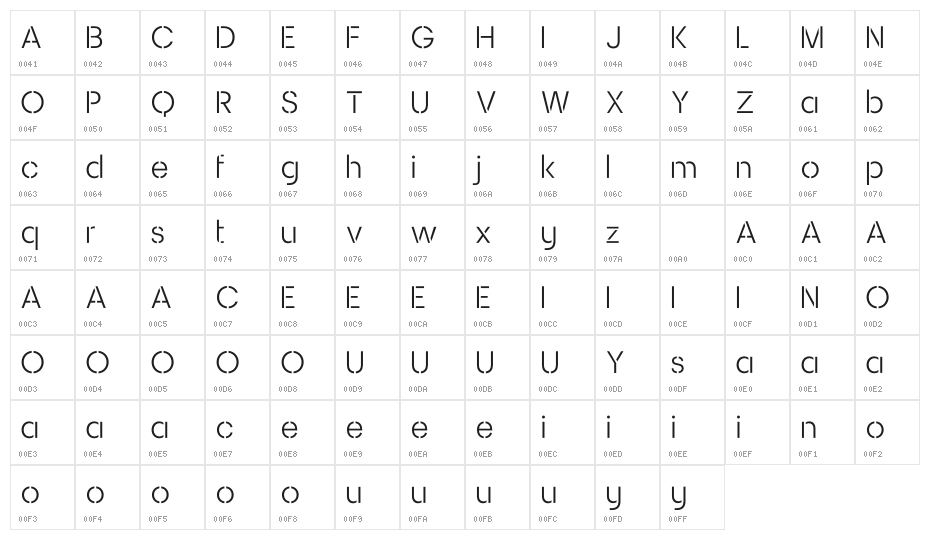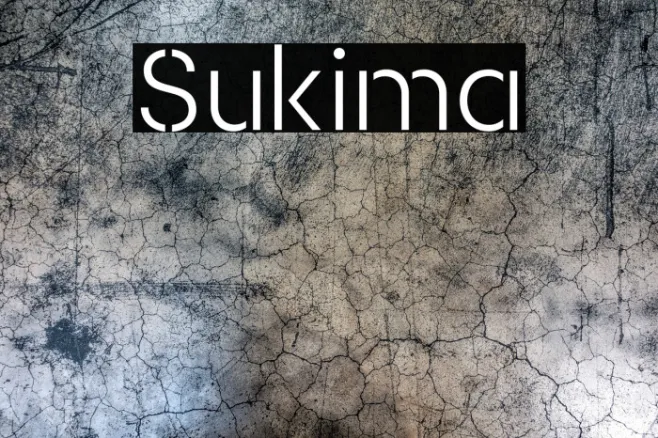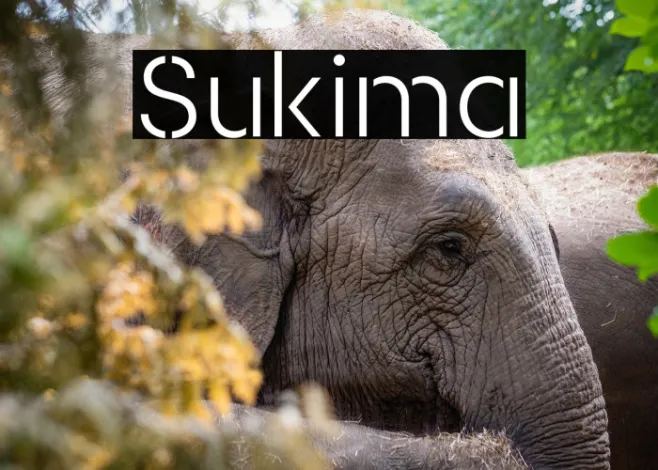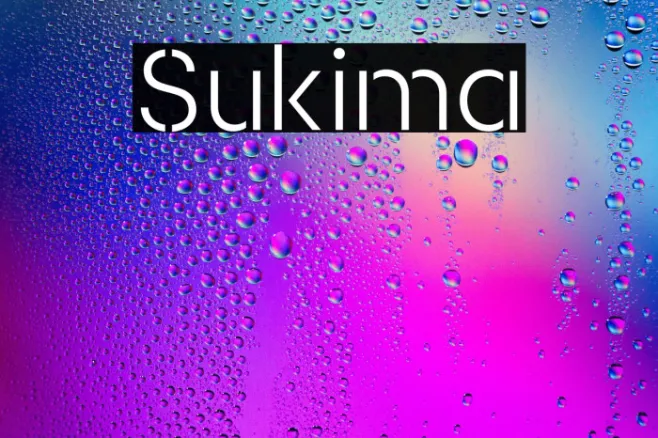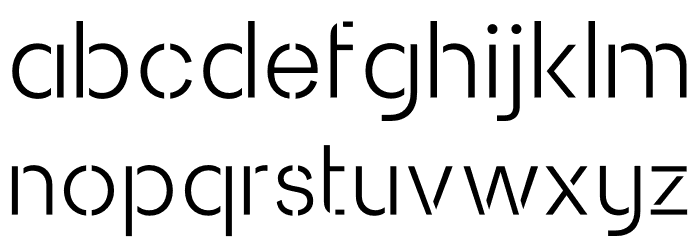
Sukima Font
Sukima Description
This font features a modern, geometric design with clean lines and a minimalist aesthetic. The characters are constructed with precise, circular forms and straight edges, creating a sense of balance and harmony. The uppercase letters are bold and striking, while the lowercase letters maintain a consistent style with slightly softer curves. The font's unique characteristic is the subtle gaps within each character, adding an intriguing visual element that enhances its contemporary appeal. This design choice gives the font a distinctive, futuristic look that is both eye-catching and versatile.
| Proposed Projects | Ideal for branding, logos, headlines, and modern web design projects. |